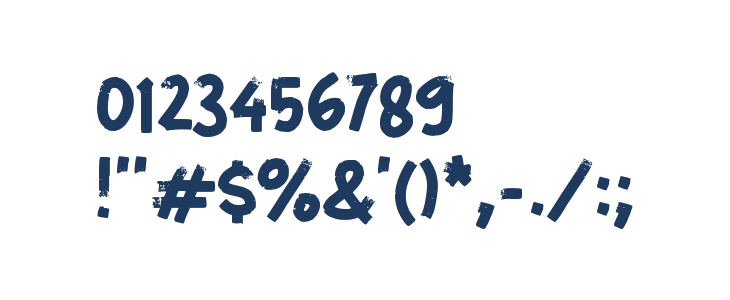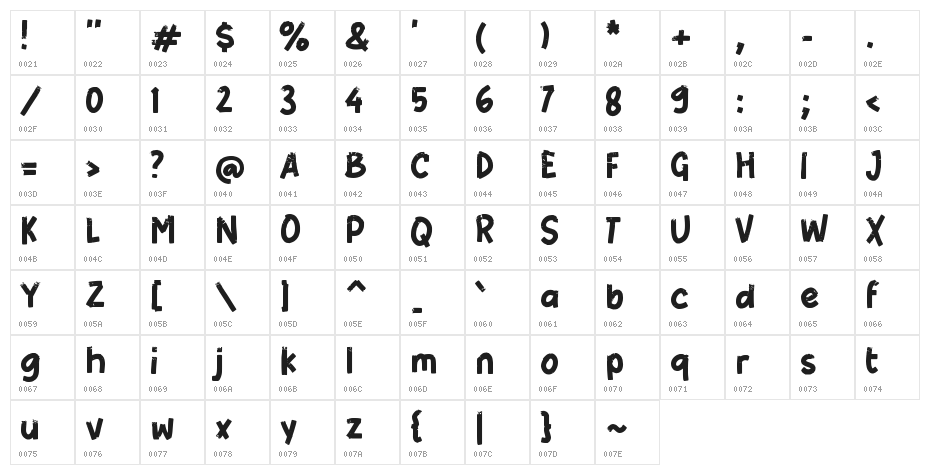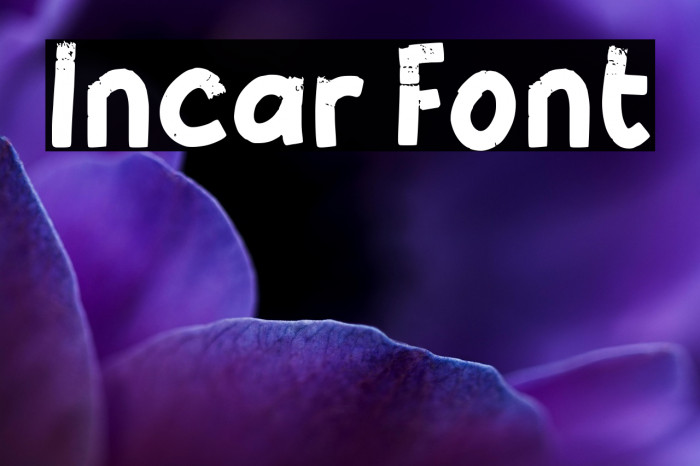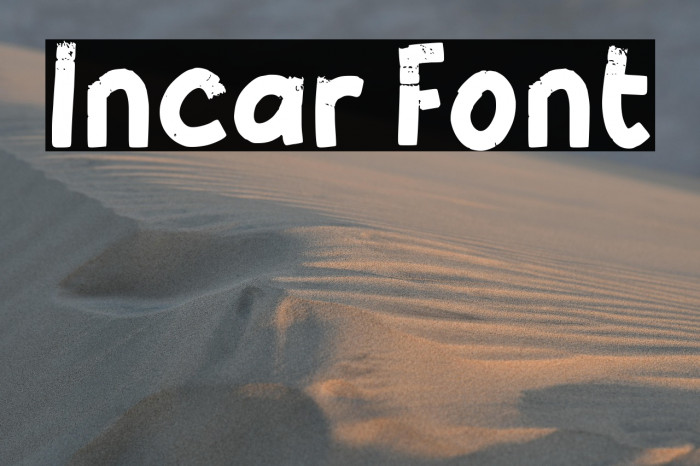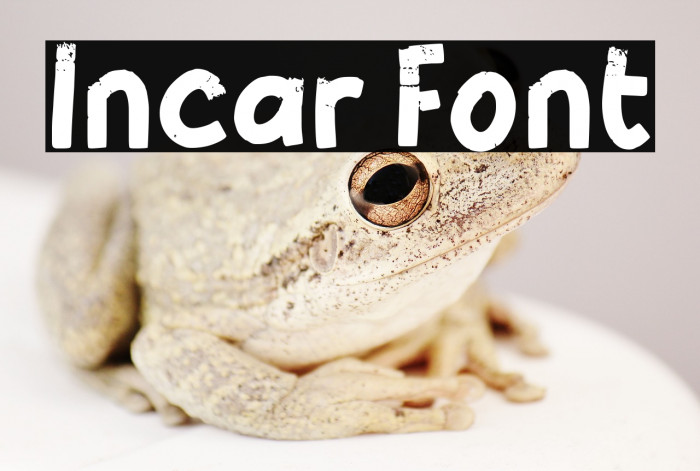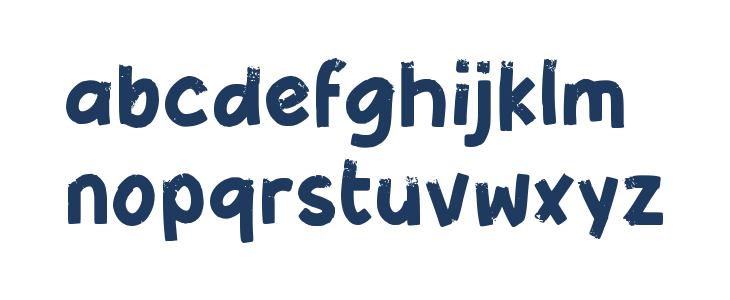
Incar Font
Incar Description
This font features a bold and playful design with a distressed texture that gives it a rugged, hand-crafted appearance. The characters are thick and slightly irregular, adding a dynamic and energetic feel. The uppercase and lowercase letters maintain a consistent style, with rounded edges and a slightly uneven baseline, enhancing its casual and approachable look. The numbers and special characters follow the same design principles, ensuring uniformity across all glyphs. This font is ideal for projects that require a bold statement with a touch of whimsy and creativity.
Use CaseHeadlines, Posters, Branding
Proposed ProjectsIdeal for posters, headlines, branding, and creative projects that need a bold and playful touch.